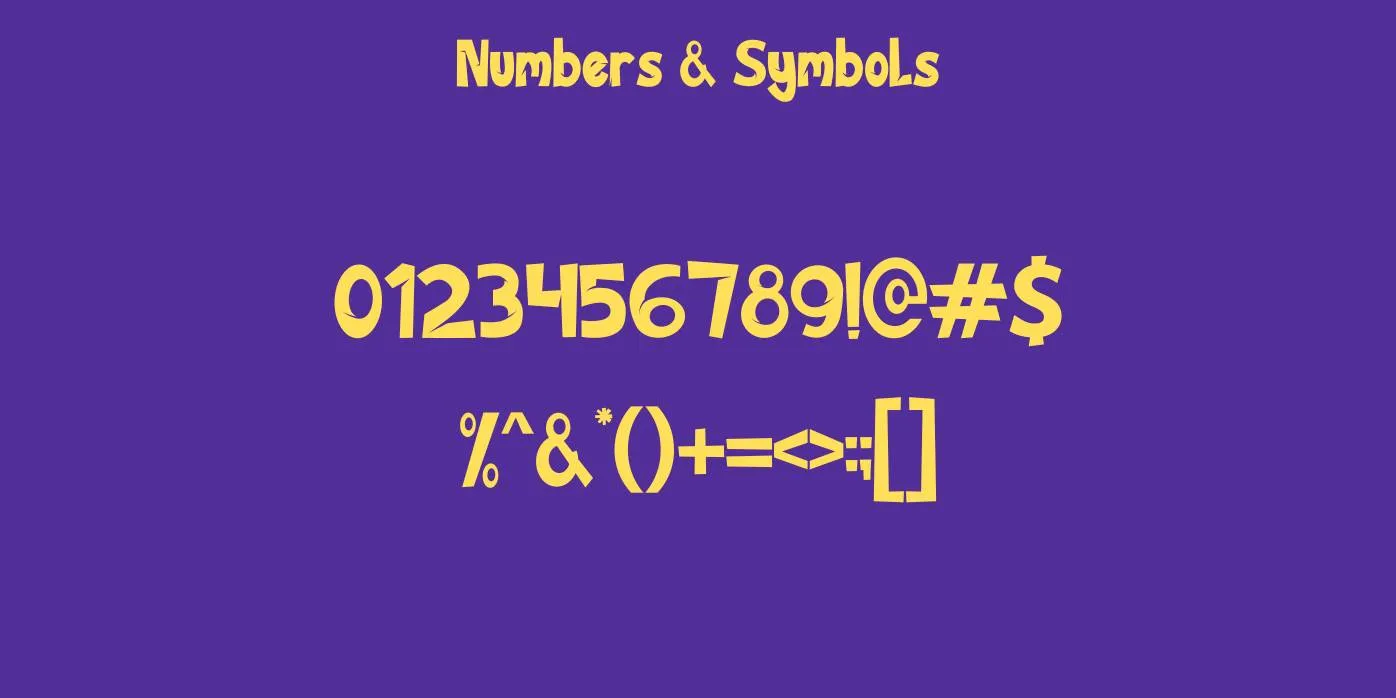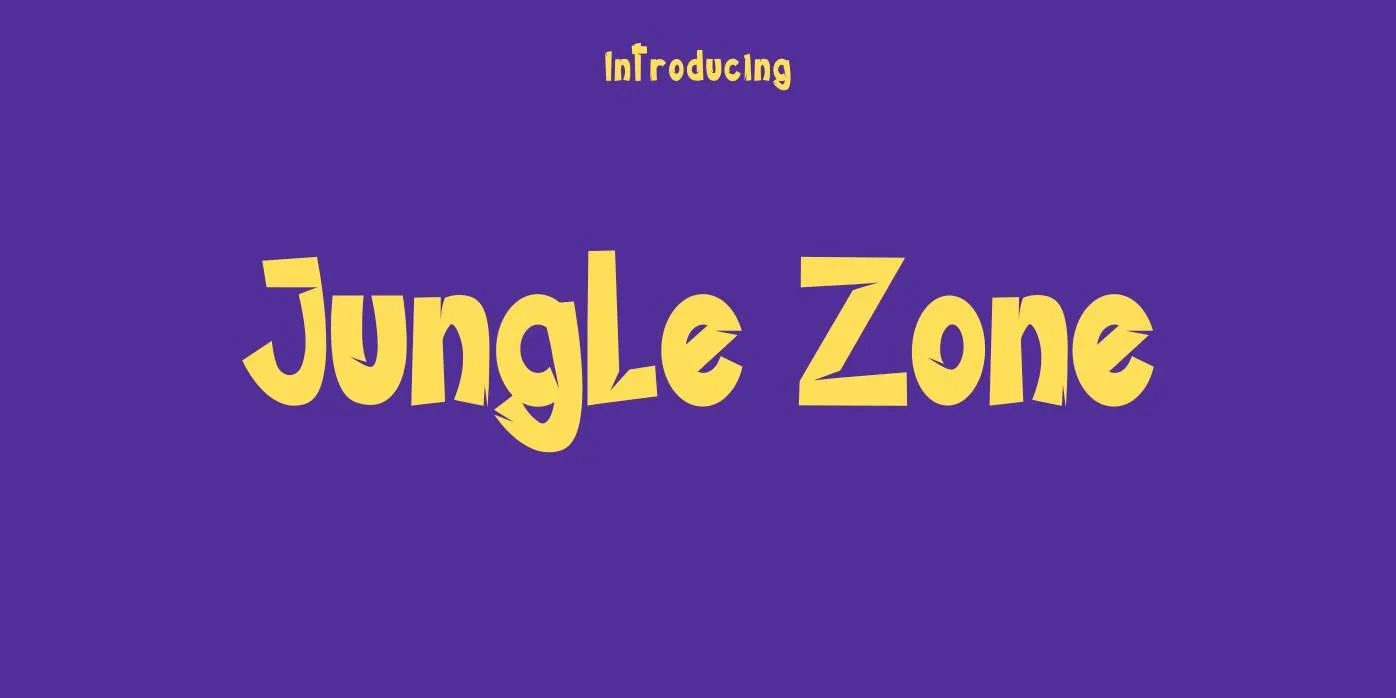
Jungle Zone Font
Here we are introducing a very interesting fancy typeface Jungle Zone Font. This cartoon font was designed by a famous designer Surya Iswandi and launched by StartsStudios in 2020. This is a very loveable font not only for kids but for elders also. The characters of this font have sharp edges with a very amazing modern look.
The weight of this font is bold and it contains 236 glyphs including Upper and lowercase, numbers and symbols. This is a proportionally spaced typeface with a unique design. You can also generate this Font using online font generator tool. These tools allow you to create or customized font that is perfect for your project.
Usages When we talk about its usage then there is a huge list of places where the font is used in an extensive range. It is a very amazing font that can help to create Advertising, Displays, Signs, Posters, and Logos. If you want to make a logo for your brand then use this font in Canva or Adobe Photoshop to make beautiful designs. You can also use it for printing social media posts, T-shirts, mugs, and for playing section of kids in the house or in their bedroom to give an attractive look.
You can make lots of projects by using this font. It is good for making logos, headings, titles, artwork, posters, banners, and much more. Can I use Jungle Zone Font in my Logos? Yes, it is good for making attractive logos for different brands and organizations as well as other projects.